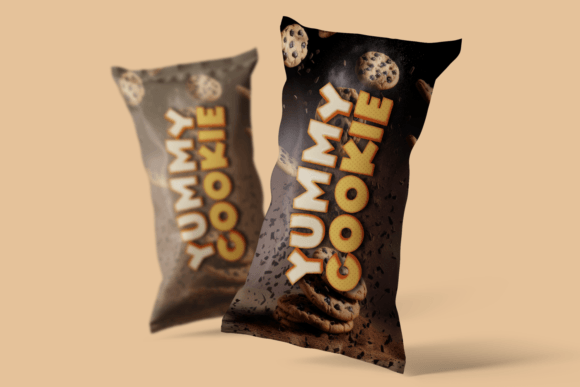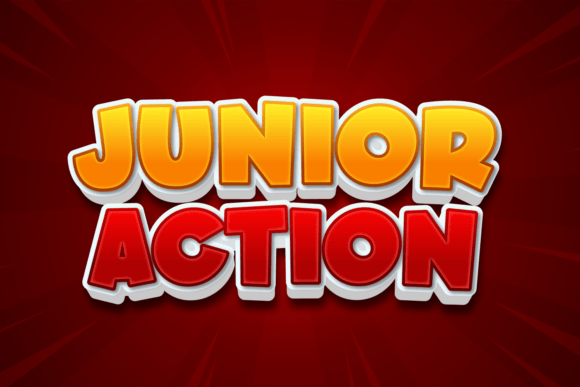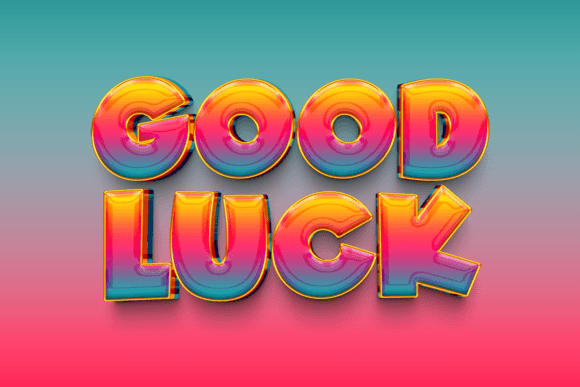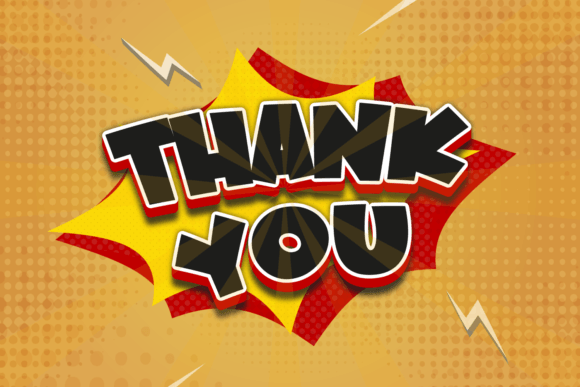
The Hero Wars Font: A Cute and Chunky Display Font for Creative Projects
I’ll never forget the time I was working on a project for a client who wanted a bold, eye-catching font to make their product packaging stand out. I scoured the internet for hours, trying to find the perfect font, but nothing seemed quite right. That was until I stumbled upon the Hero Wars font. This adorable, chunky display font has been a game-changer for my design projects, and I’m excited to share it with you!
An Honest Review of Hero Wars Font
- 💬 The font’s playful, energetic vibe makes it perfect for creative projects that need a pop of personality.
- ✅ Its chunky design ensures that your text will stand out, even at smaller font sizes.
- 🎨 The font’s versatility makes it suitable for a wide range of applications, from product packaging to book covers and t-shirts.
- 👍 The font is easy to read, even at smaller sizes, making it perfect for headlines and titles.
While the Hero Wars font is an excellent choice for many projects, there are a few things to keep in mind:
- 🤔 The font may not be the best choice for body text or longer blocks of text, as it can be a bit too bold and overwhelming.
- ⚠️ Some of the font’s characters, such as the lowercase letters, can be a bit inconsistent in terms of width and spacing.
The Hero Wars font was designed with the goal of creating a fun, energetic font that would inspire creativity and playfulness. The designer, who wishes to remain anonymous, drew inspiration from classic video games and comic books. The result is a font that’s both nostalgic and modern, with a unique personality that’s hard to find.
Q: What is the Hero Wars font?
A: The Hero Wars font is a cute and chunky display font designed for creative projects.
Q: What can I use the Hero Wars font for?
A: You can use the Hero Wars font for a wide range of projects, including product packaging, book covers, t-shirts, headlines, and more.
Q: Is the Hero Wars font easy to read?
A: Yes, the Hero Wars font is easy to read, even at smaller font sizes, making it perfect for headlines and titles.